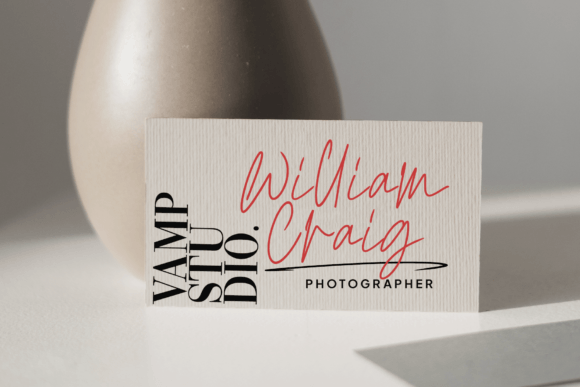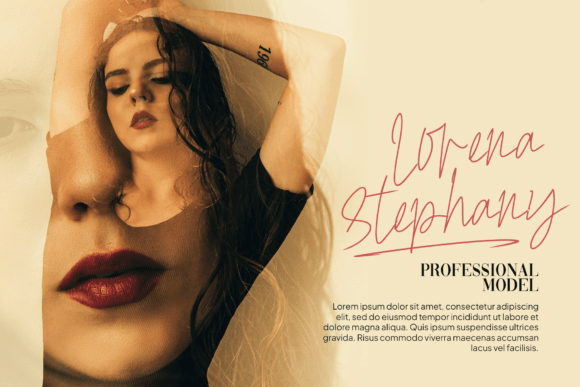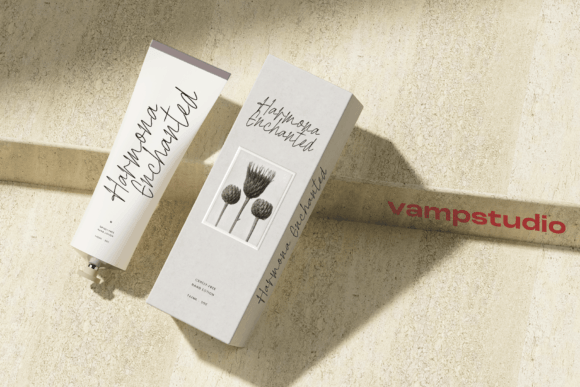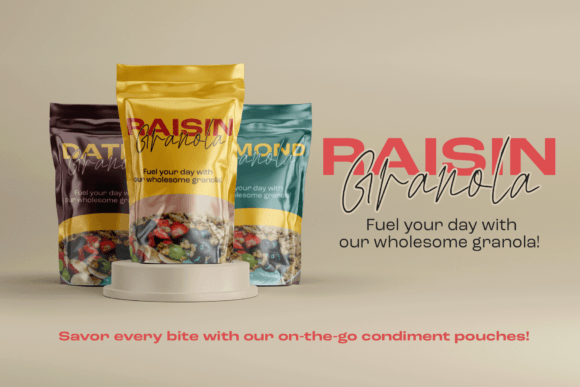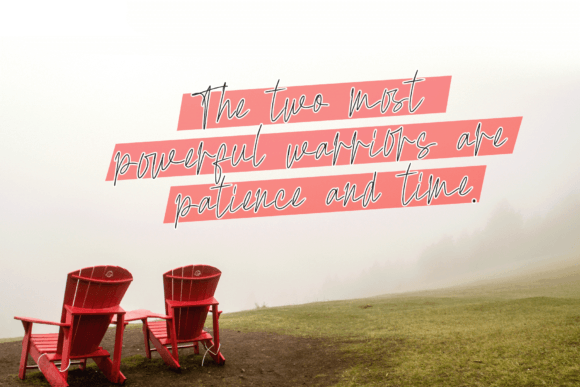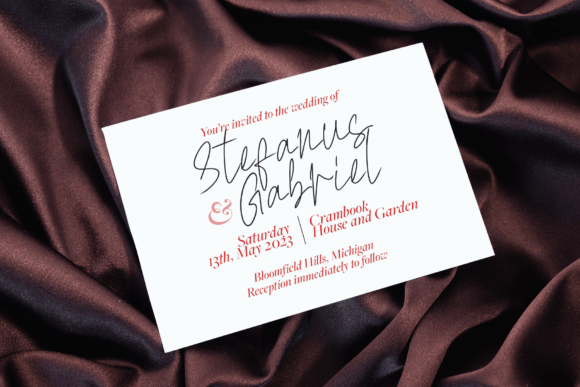
Introduction to Risling Font
Risling is an elegant script font, perfect for photography, watermark, social media posts, advertisements, logos & branding, invitations, product designs, label, stationery, wedding designs, product packaging, special events or anything that need a handwriting taste.
Key Features of Risling Font
Why Choose Risling Font?
Risling Font offers exceptional quality and versatility, making it a valuable addition to your design toolkit. Whether you’re creating for personal projects or commercial use, Risling Font delivers professional results.